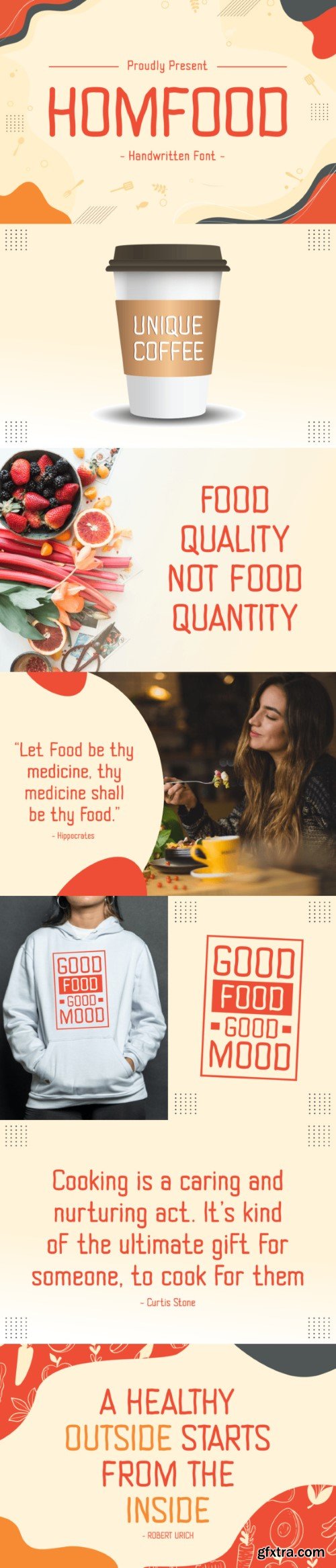
Homfood is a friendly and playful wavy font that brings a touch of fun to your text. The letters flow with a gentle wave, giving your words a lively and dynamic appearance. Whether you’re designing menus, food-related content, or anything that needs a dash of personality, Homfood adds a charming and casual vibe to your projects. Spice up your visuals with this wavy font, making every word feel as delightful as a homemade dish.